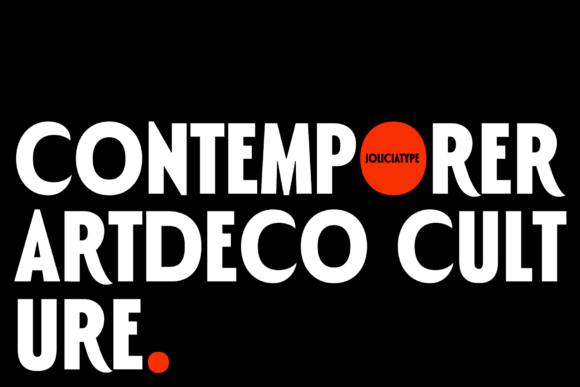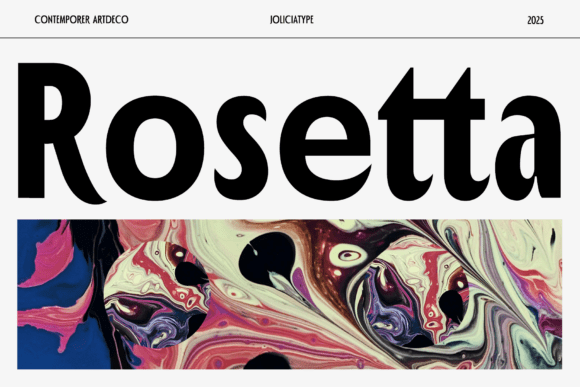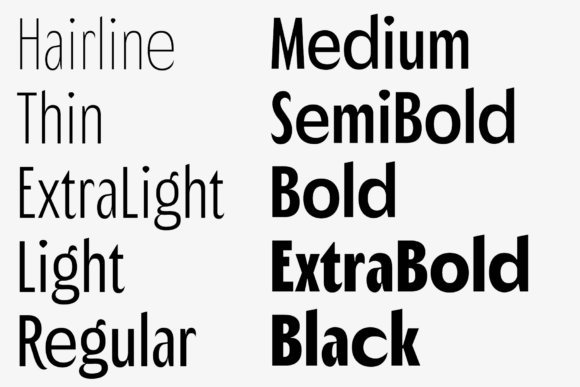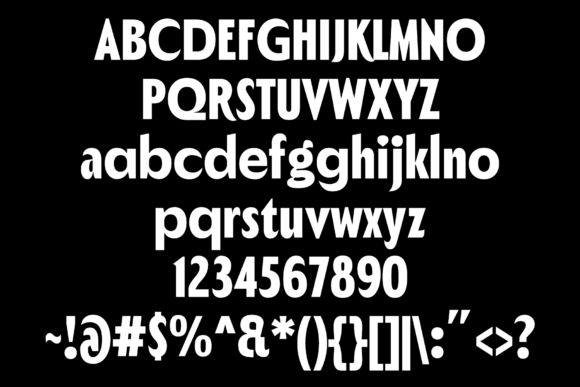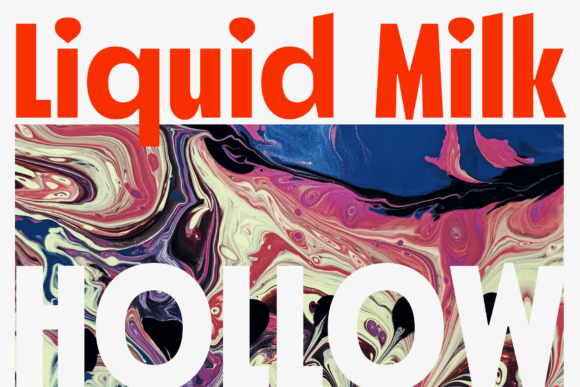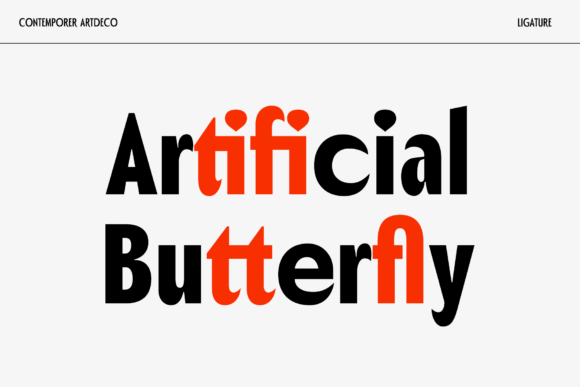
Introduction to Polienz Font
As a designer, you’ve probably found yourself staring at a blank canvas, desperately searching for the perfect font to bring your creative project to life. The struggle is real, but what if you stumbled upon a game-changing typeface that elevates your work to the next level? Enter Polienz Font, a stunning Art Deco-inspired sans serif that’s about to become your new go-to design resource.
Polienz Font is more than just a pretty face; it’s a high-quality typeface that offers the perfect blend of vintage elegance and modern edge. With its clean lines, bold geometric structure, and transparent background, it’s the perfect choice for designers looking to add a touch of sophistication to their work. Whether you’re working on a packaging design, a fashion campaign, or a poster, Polienz Font is the ideal companion to help you create a truly unforgettable visual experience.
What makes Polienz Font truly valuable for designers is its incredible flexibility. With 10 weights to choose from, from Hairline to Black, you can easily adapt it to suit your creative vision. Plus, it’s available for free download, making it an essential addition to your design arsenal. Get ready to take your designs to new heights with the Polienz Font!
Key Features of Polienz Font
- Perfect for use in graphic design, digital art, and other creative pursuits, thanks to its high-resolution design.
- Designed with a unique aesthetic, Polienz Font is ideal for projects requiring a touch of sophistication and elegance.
Honest Review: Polienz Font
I recently had the chance to work with the Polienz Font, and I must say, it’s a great addition to my design resources. ✨ With its sleek and modern aesthetic, it’s perfect for any creative project that requires a high-quality font.
- ✨ High-quality design that’s perfect for modern creative projects
While the Polienz Font is a great addition to any designer’s toolkit, there are a few limitations to keep in mind. ⚠️ The font may not be suitable for more traditional or classic designs, as its modern aesthetic may clash with older styles.
Overall, I’m impressed with the Polienz Font and would definitely recommend it to designers looking for a high-quality font for their creative projects.
Using Polienz Font in Creative Projects
Polienz Font is a high-quality design resource perfect for creative projects. Use it to add a unique touch to your designs, whether you’re working on a logo, poster, or brochure. With its transparent background, you can easily layer it with other design elements to create a stunning visual effect.
Tips for Getting the Most Out of Polienz Font
To get the most out of Polienz Font, experiment with different font sizes, colors, and layering techniques. Use it in combination with other design elements to create a visually striking design.
Polienz Font is perfect for a variety of creative projects, including:
- Poster design